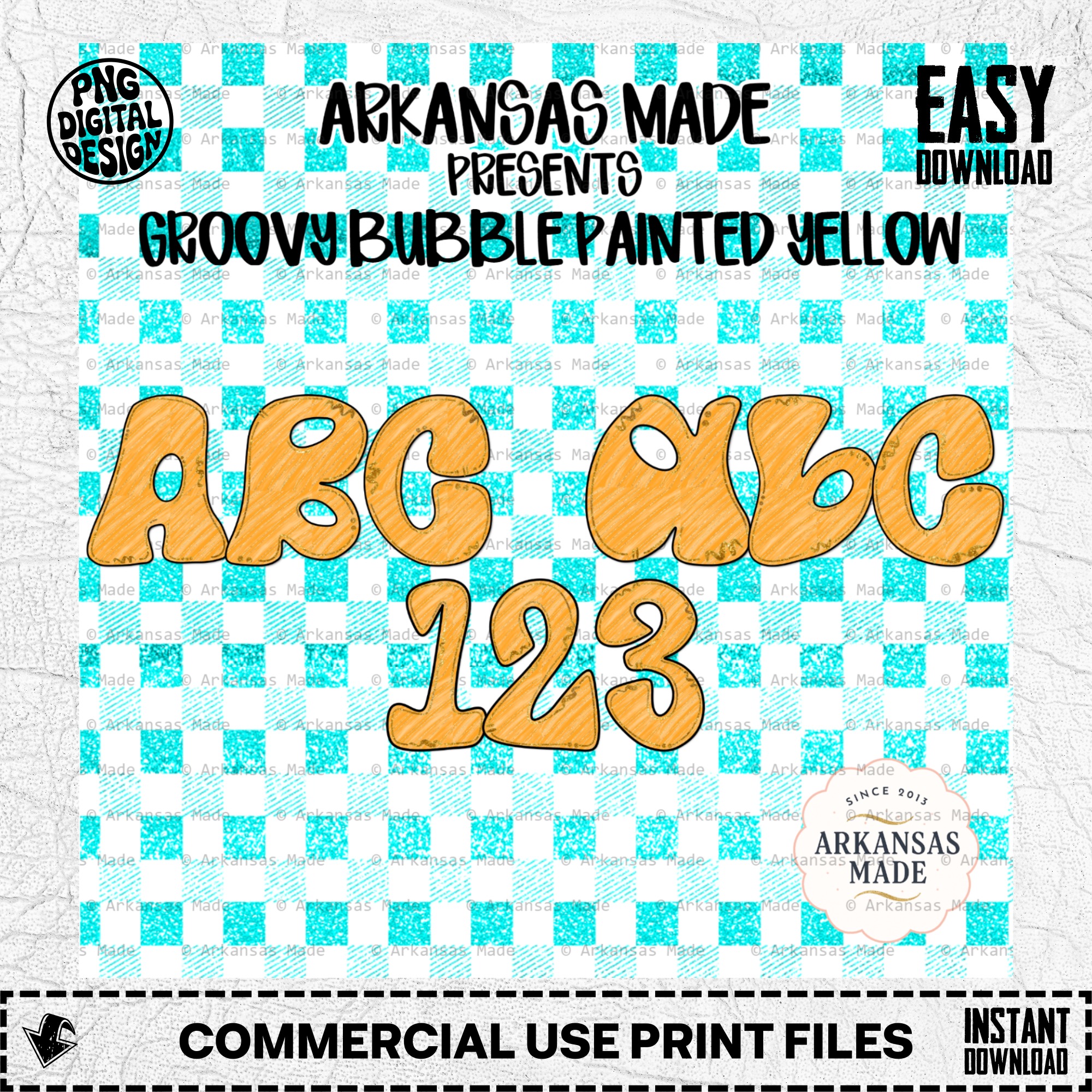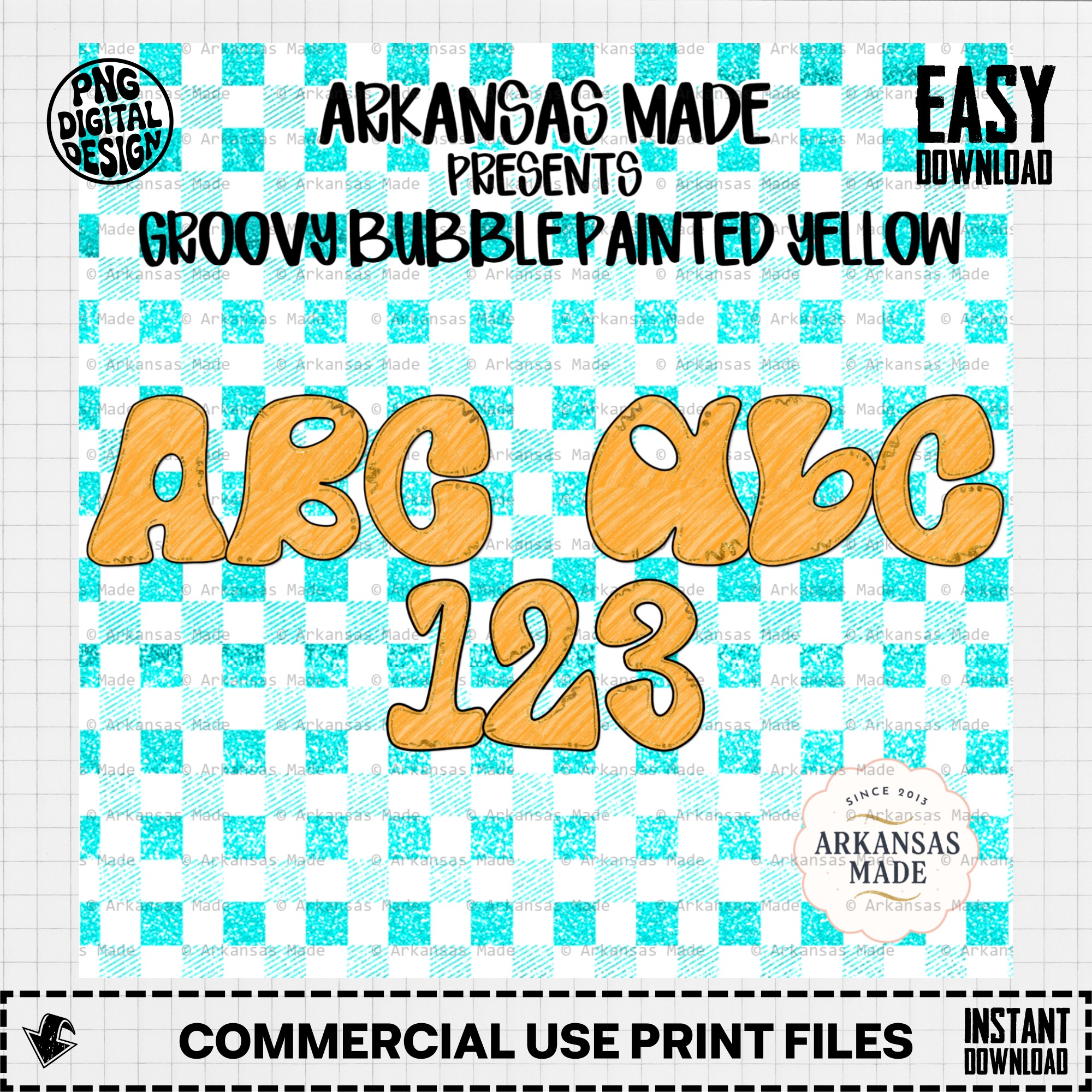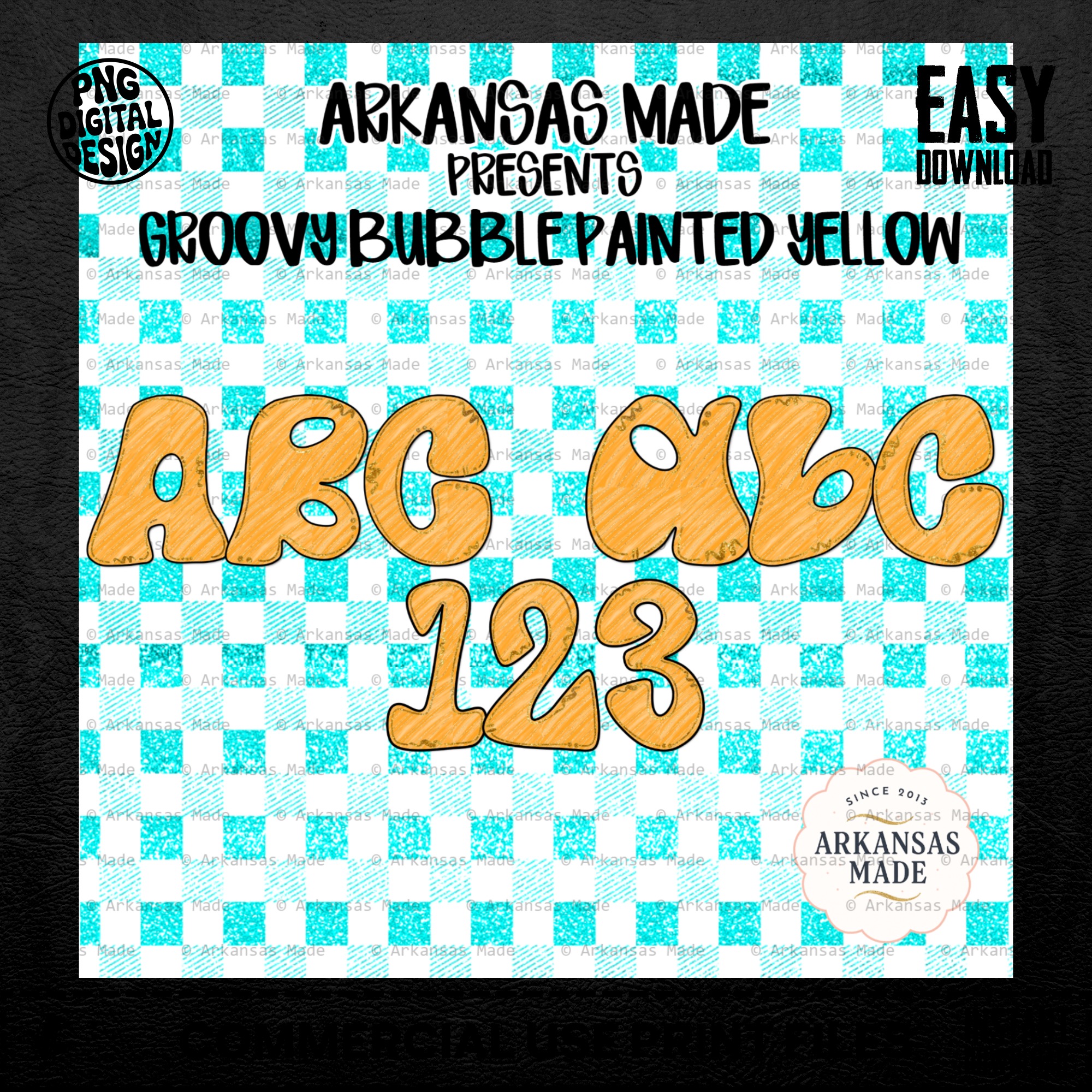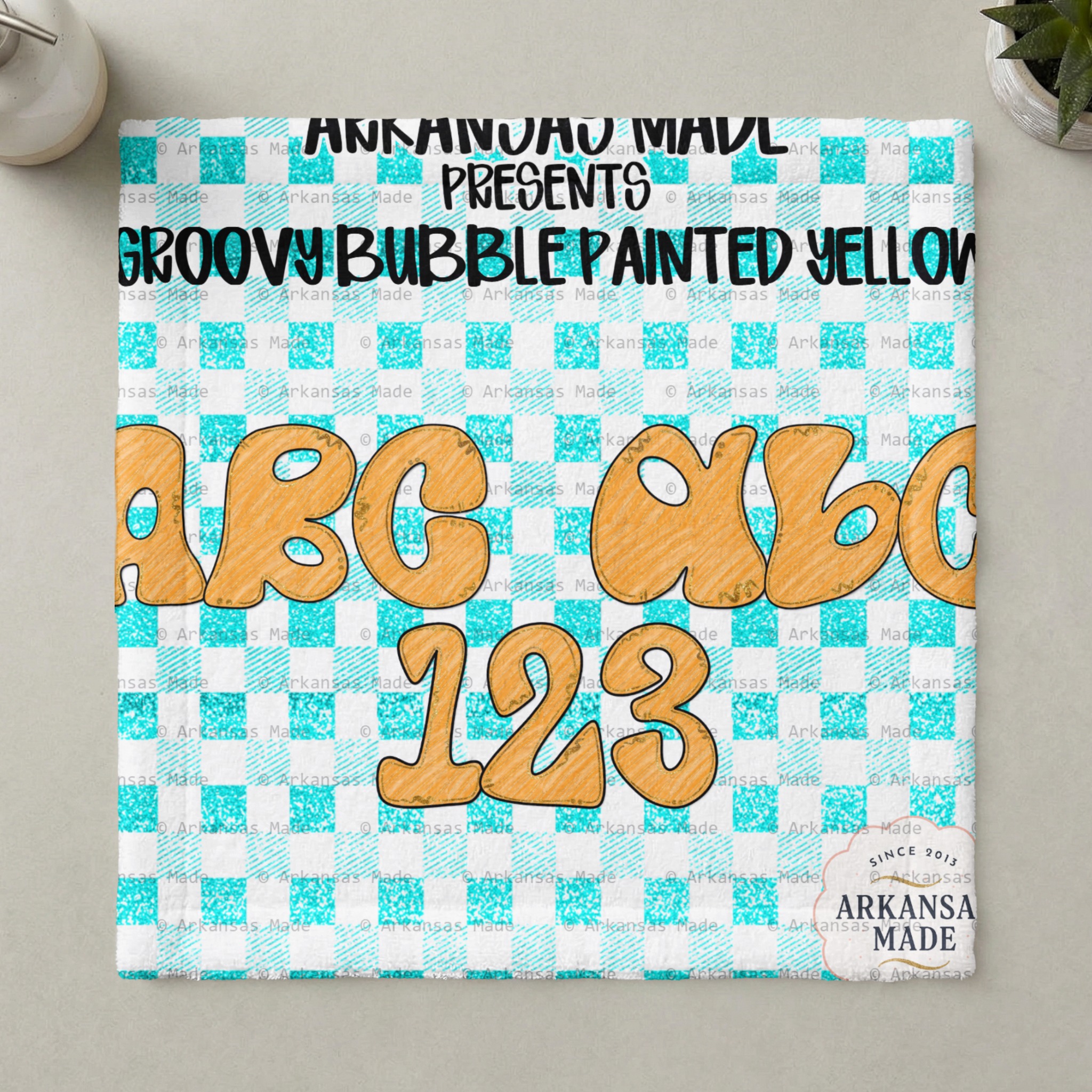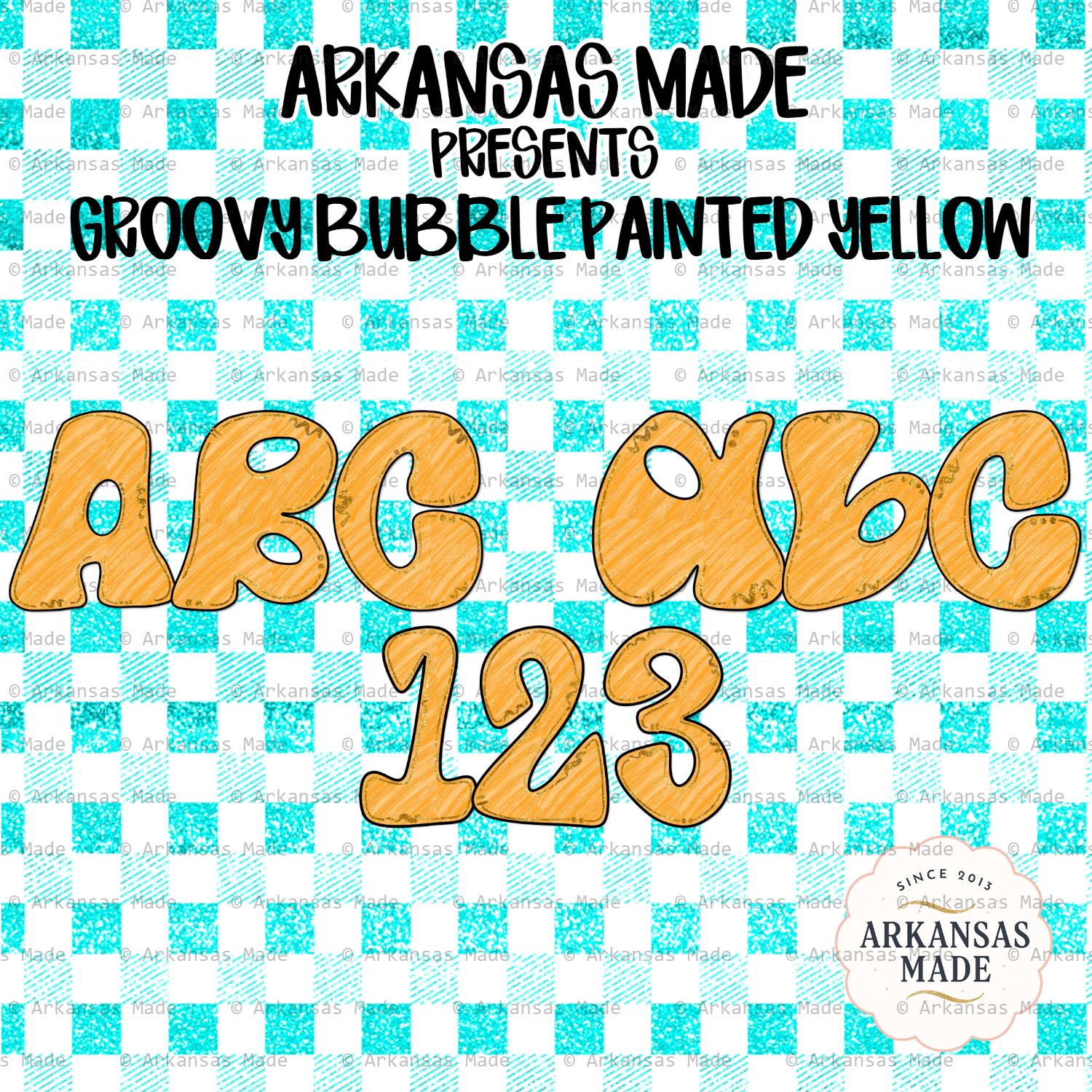
Dive into retro fun with our Groovy Bubble Letters Digital Alpha PNGs! This pack offers a vibrant, 70s-inspired painted font perfect for all your creative projects. Embrace the vintage aesthetic with these unique alphabet and number designs, featuring a charming distressed painted texture and a faux glitter effect. Ideal for crafters, small business owners, and teachers looking to add a nostalgic touch to apparel, party decor, and personalized gifts. Create standout designs for back to school, birthdays, or unique DIY projects with ease.